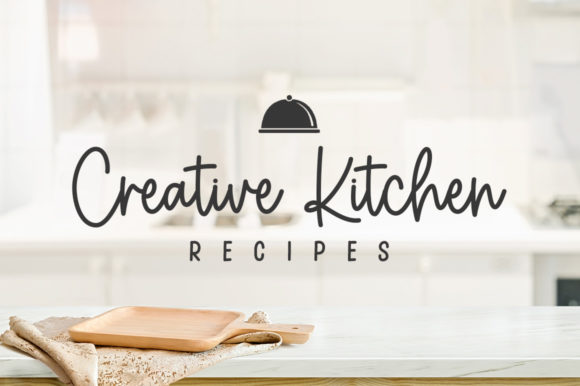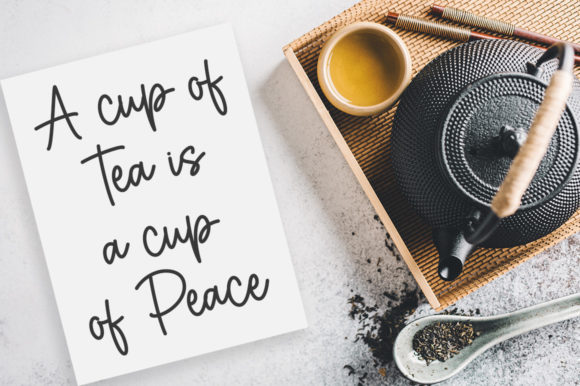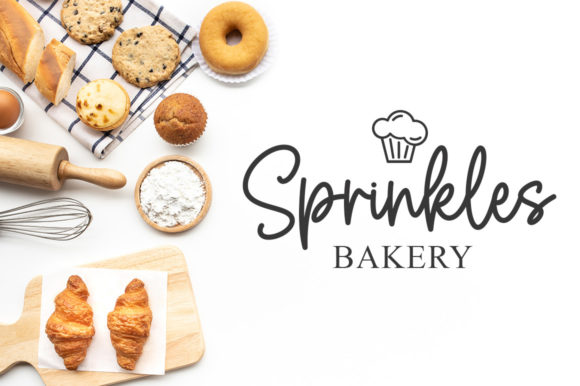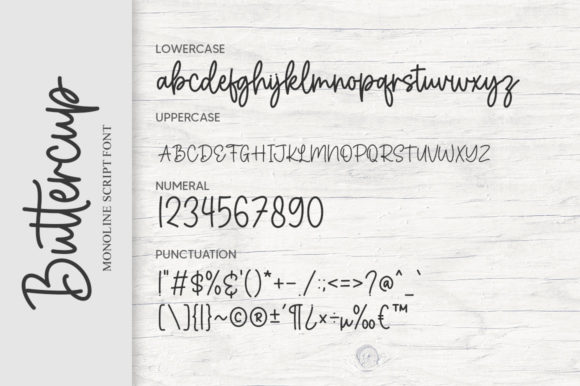
Buttercup is a dainty and flowing handwritten font.
Sweet and joyful, this font will be ideal for writing wedding invitations, cards, or any other design that may need a romantic, personalized touch!
Buttercup Font